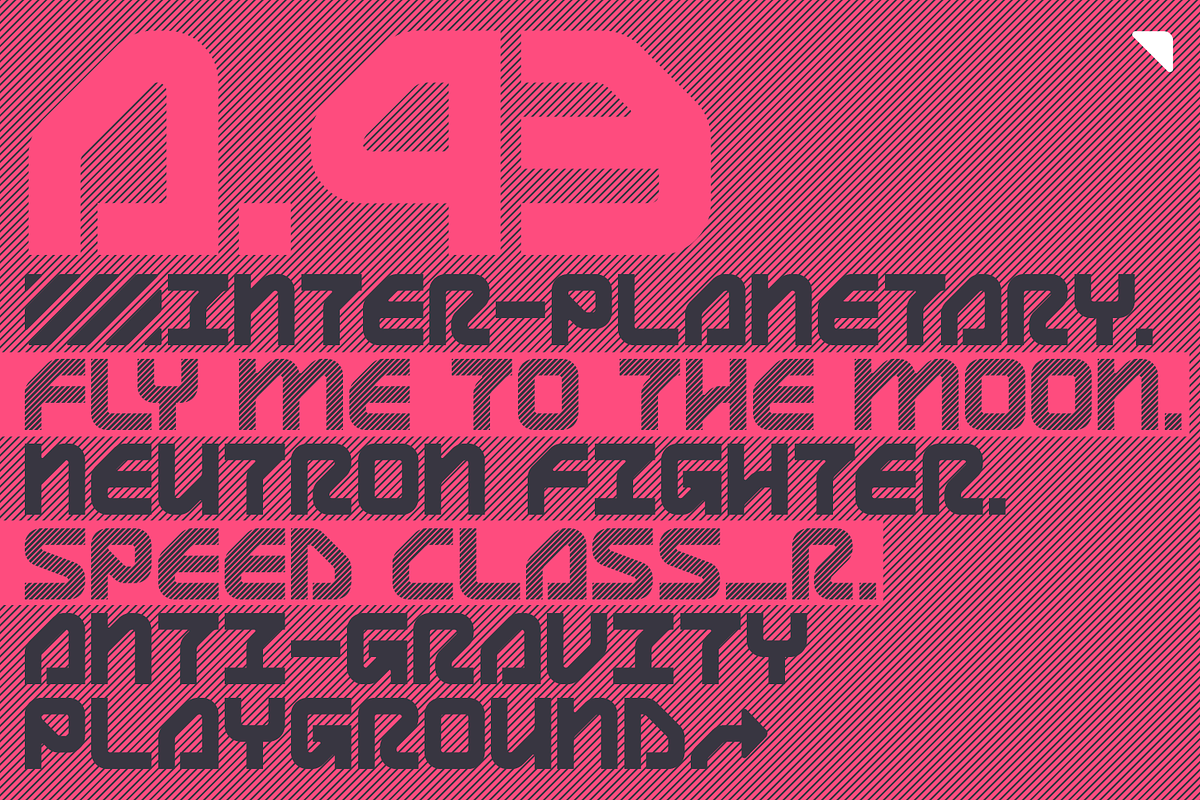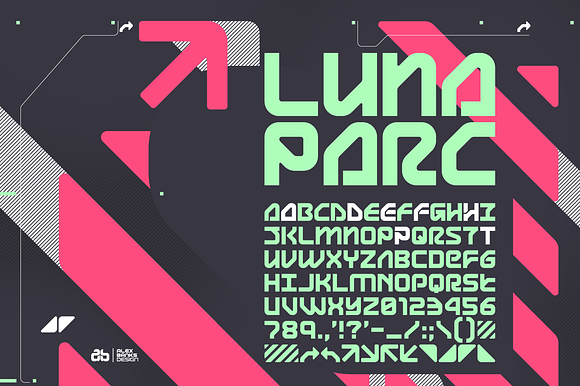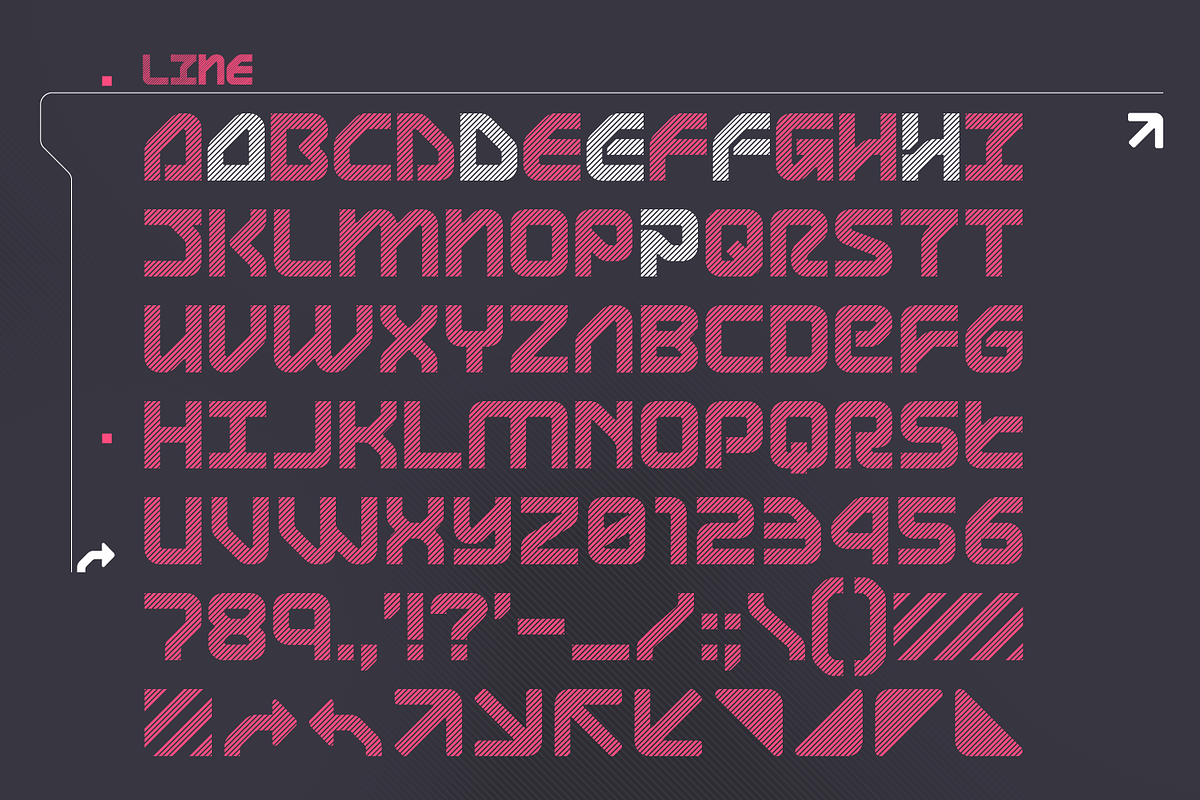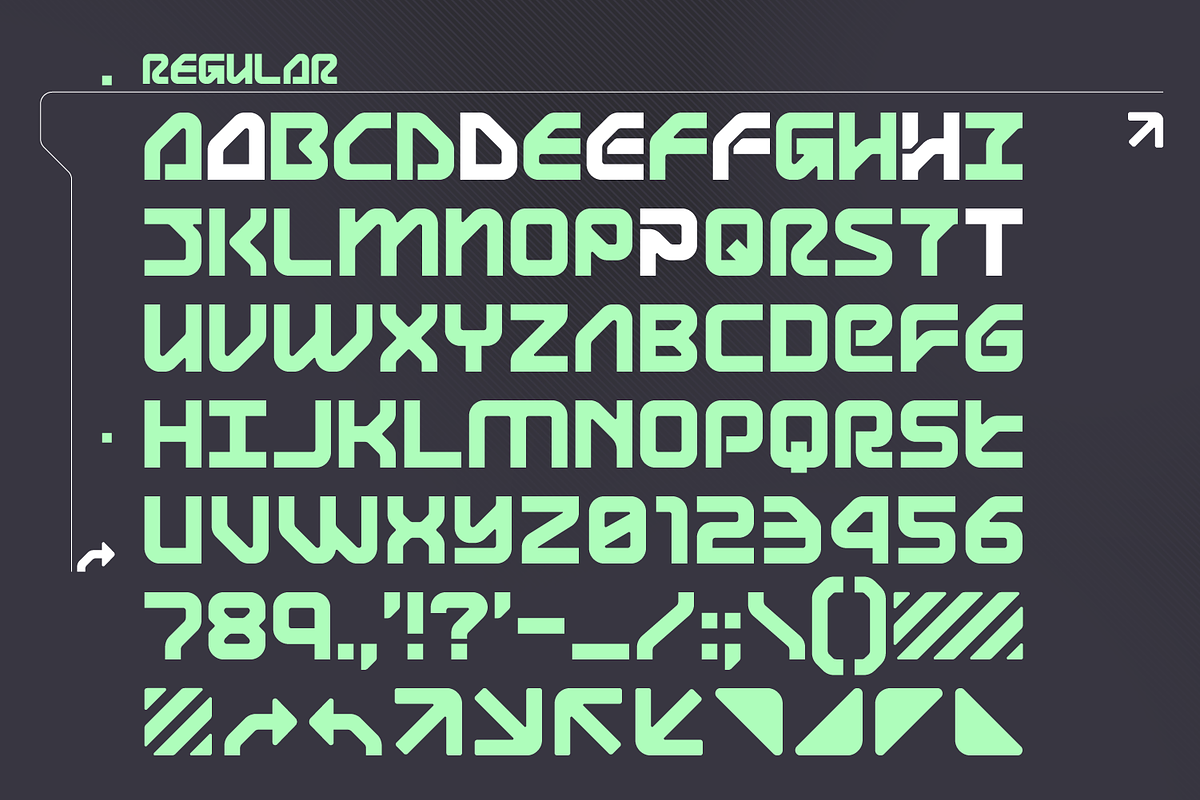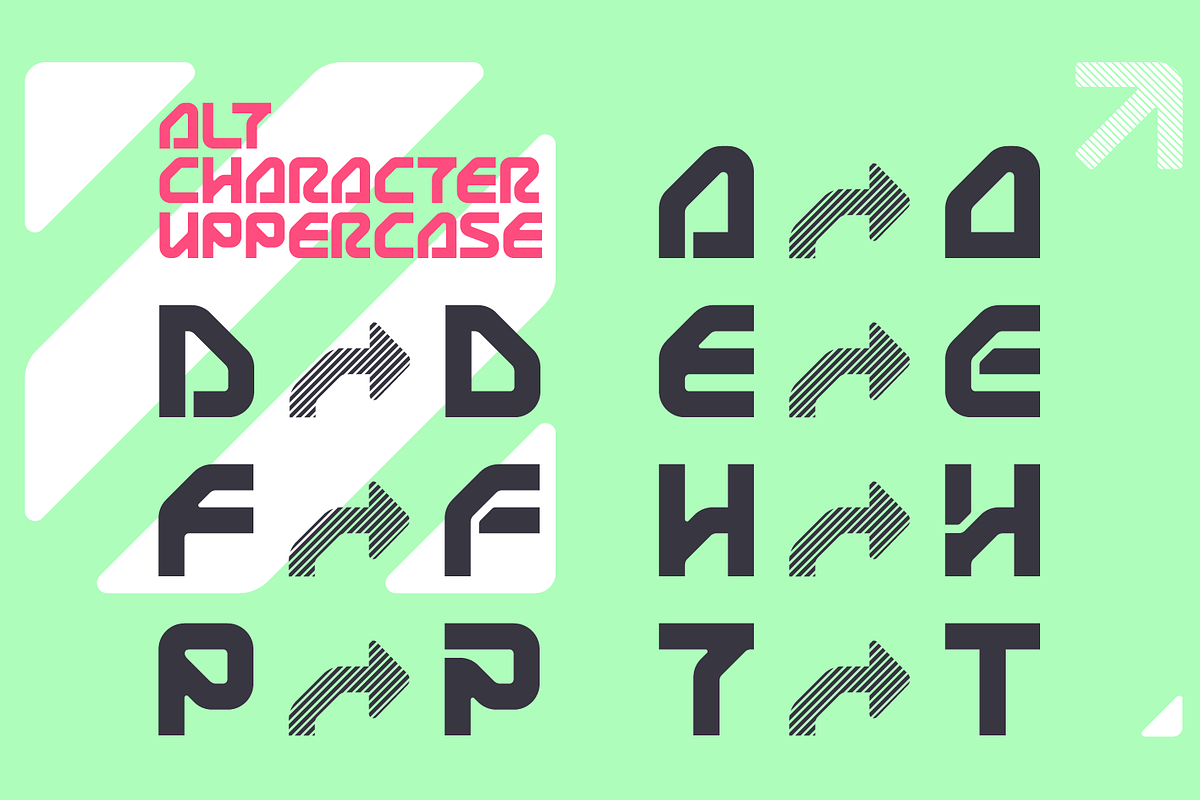
LUNA PARC Futuristic Font
LUNA PARC - Created 2020 - FUTURISTIC TYPEFACE
Inspired by The Designers Republic this typeface is set using a 45 degree angle and smooth curves to create a futuristic modern typeface.
Released in two styles Solid & Lines with upper, lower, numerals and alternative letters a super clean font you can mix together and experiment with.